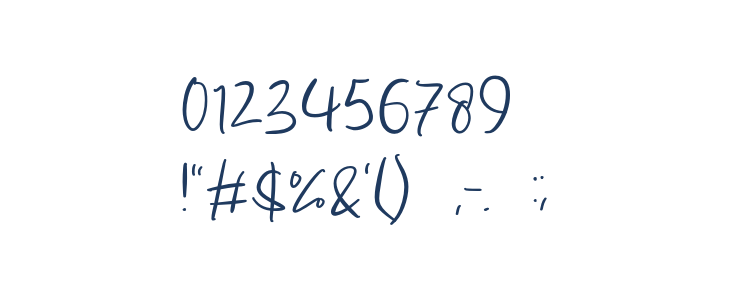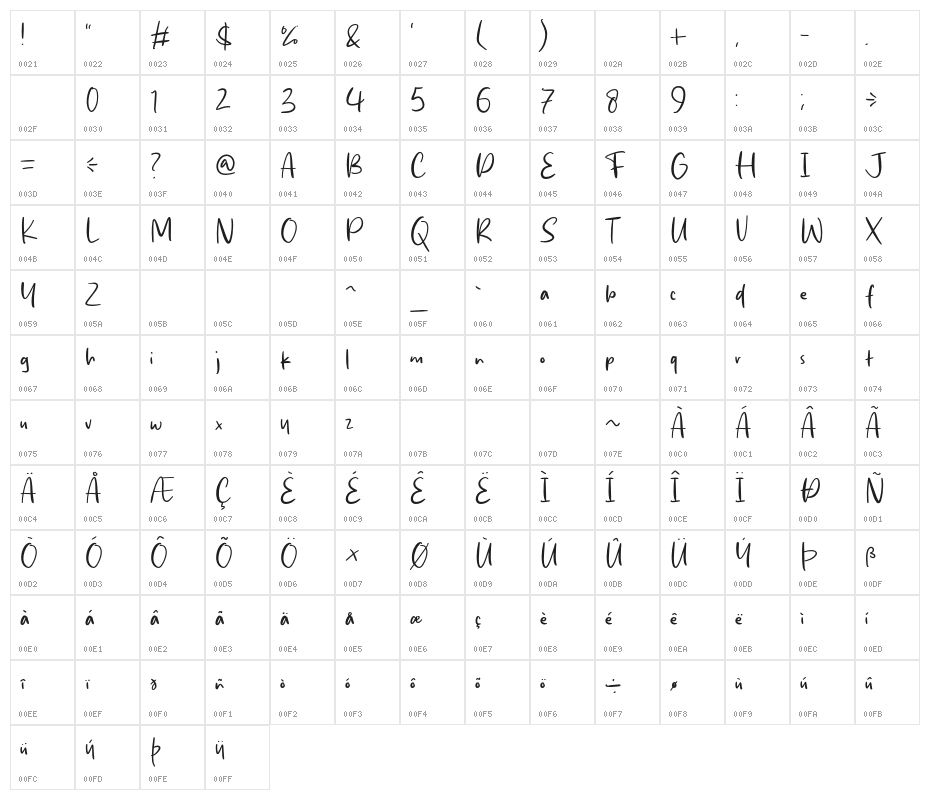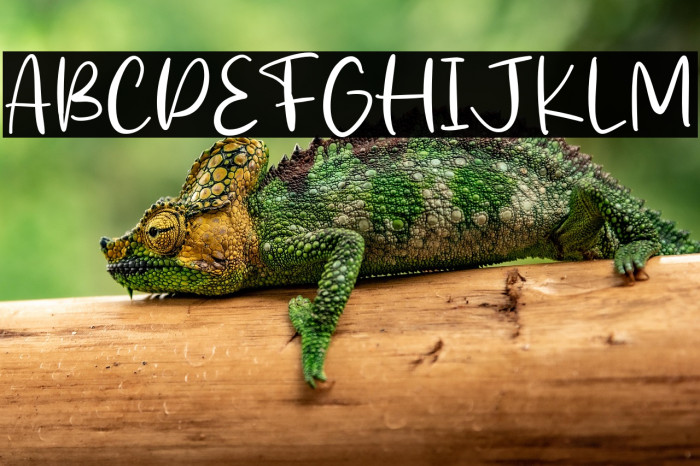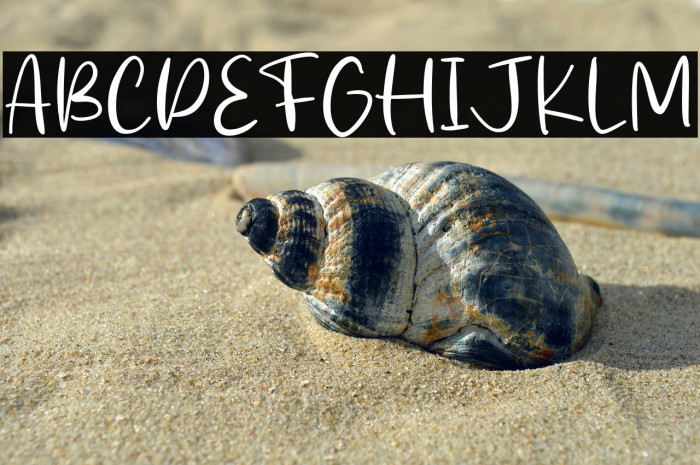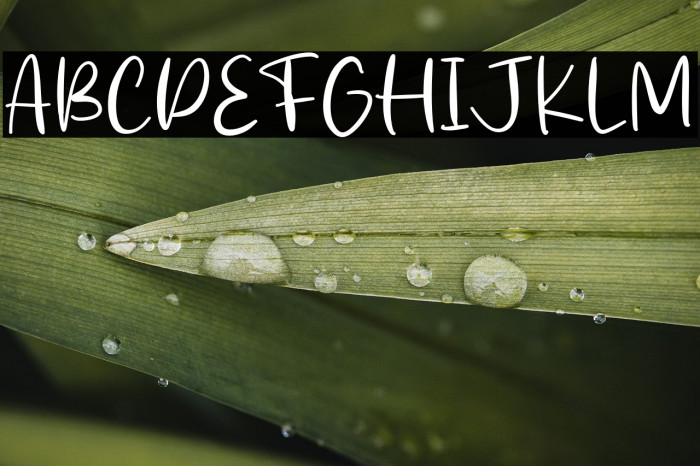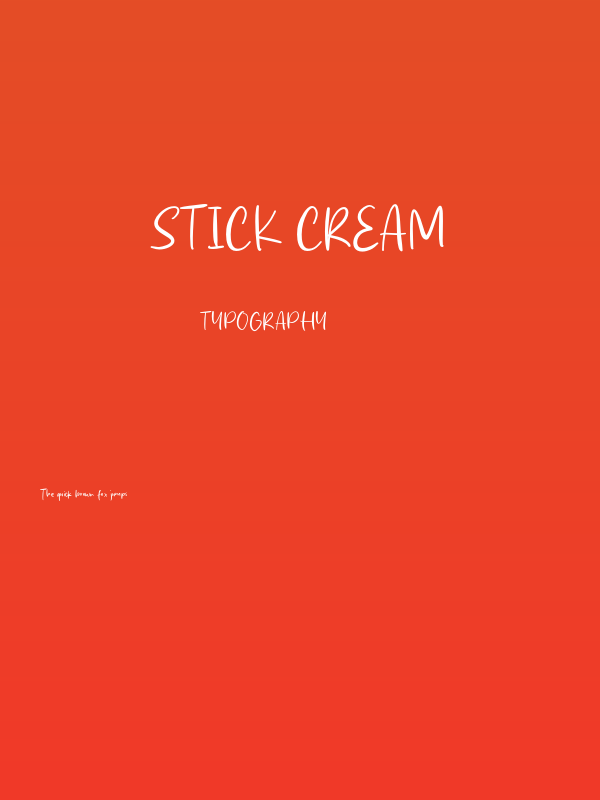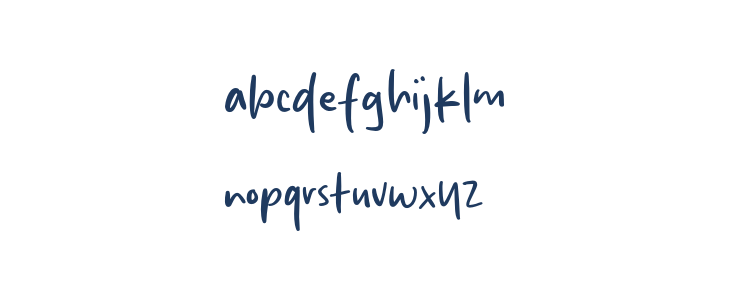
Stick Cream Font
Stick Cream Description
This font exudes a playful and casual handwritten style, characterized by its smooth, flowing lines and slightly irregular shapes. The letters have a natural, organic feel, reminiscent of a personal note or a friendly invitation. The uppercase letters are bold and prominent, while the lowercase letters maintain a consistent flow, enhancing readability. The numbers and special characters are crafted with the same whimsical touch, making them blend seamlessly with the alphabet. This font's charm lies in its ability to convey warmth and approachability, making it ideal for projects that require a personal touch.
| Overall Style | Casual |
| Use Case | Logos, Invitations, Personal notes |
| Proposed Projects | Ideal for greeting cards, invitations, personal blogs, and creative branding projects. |